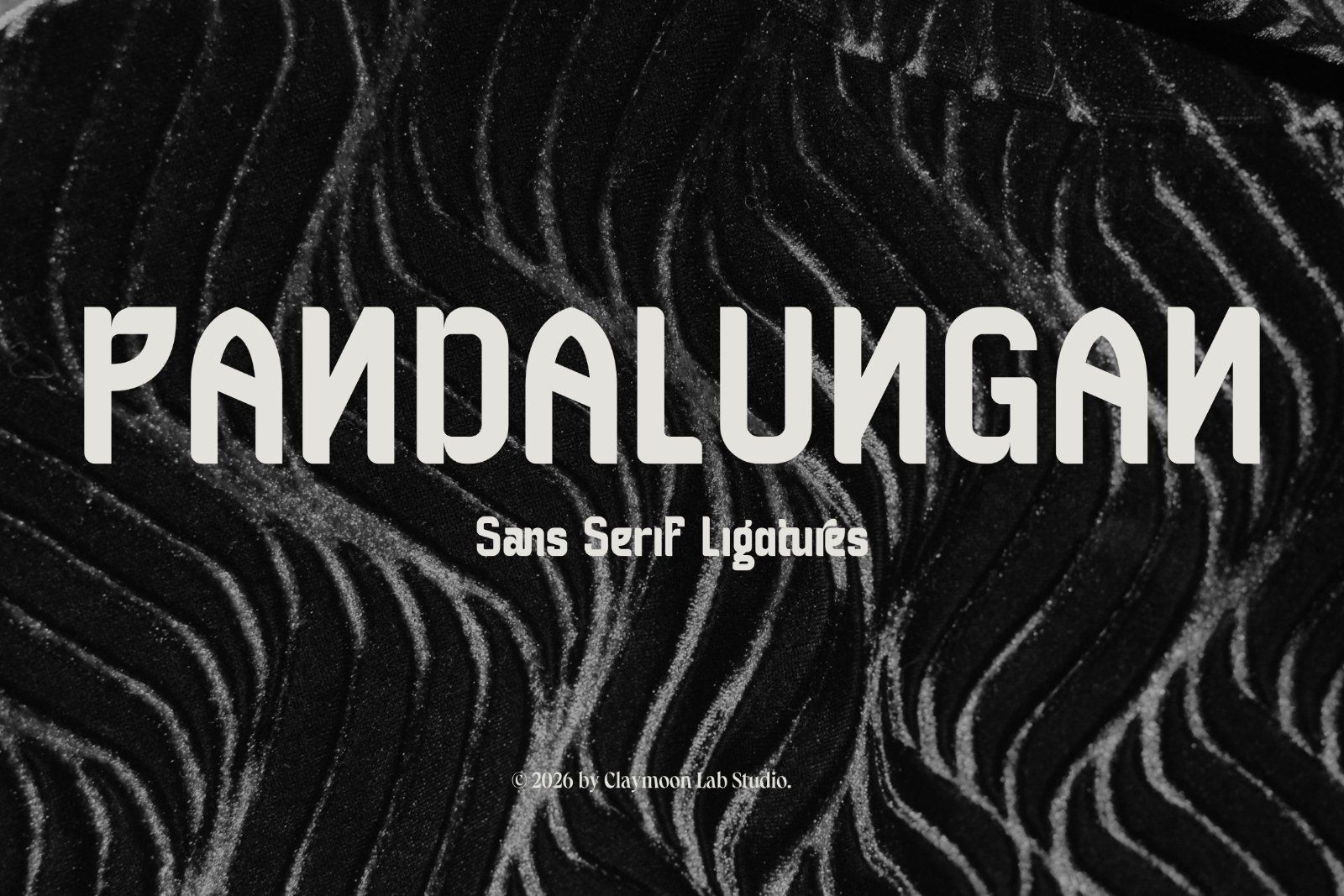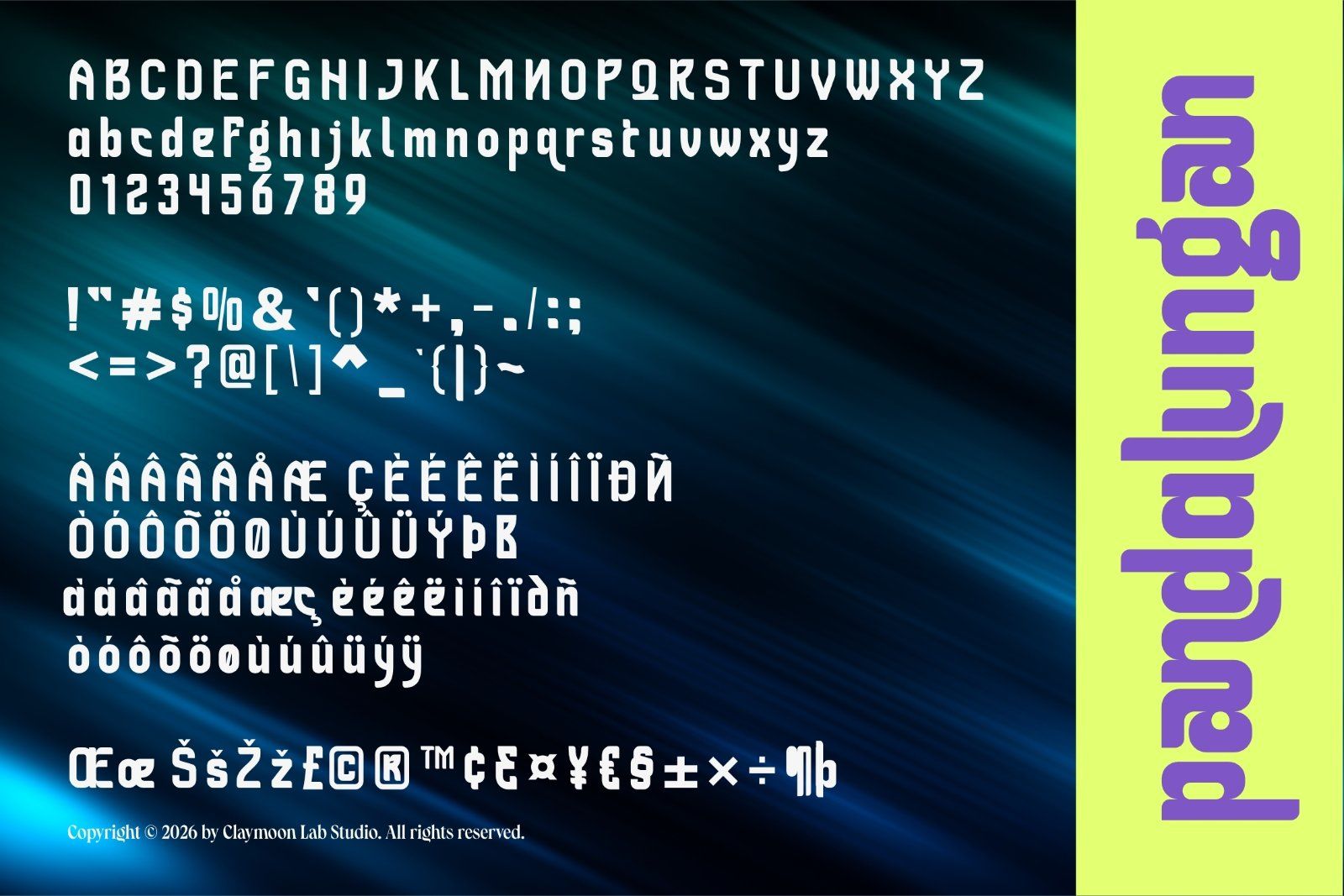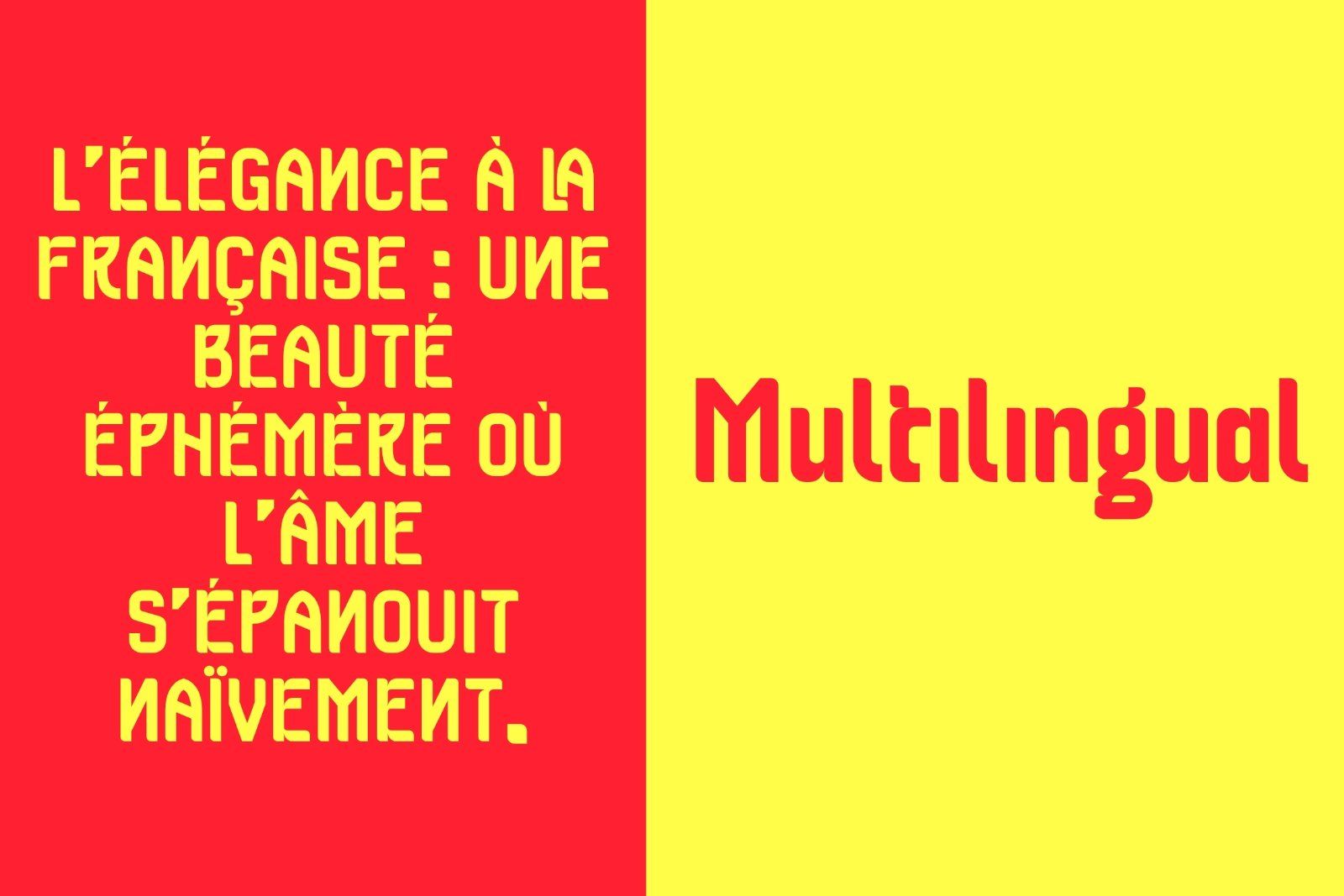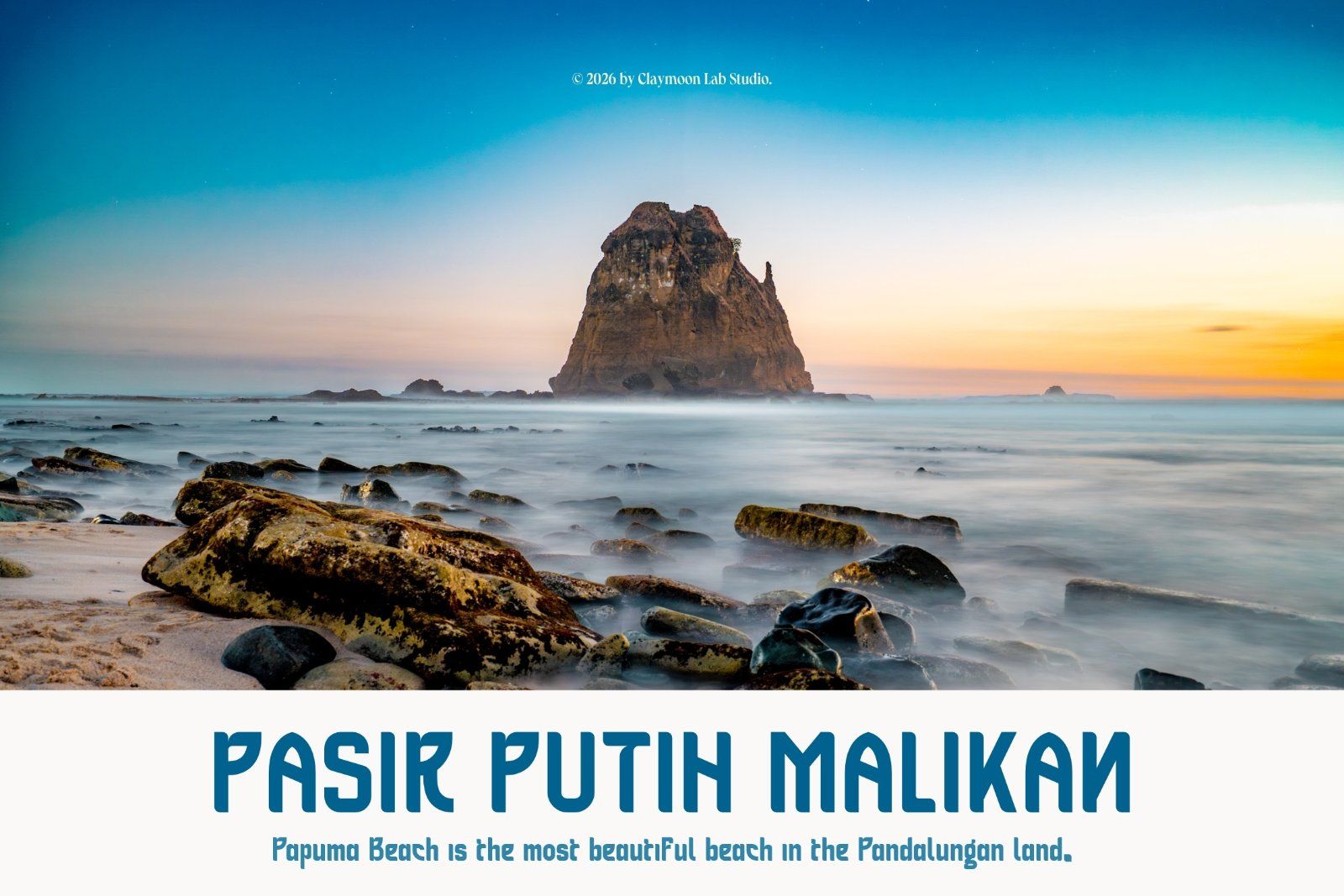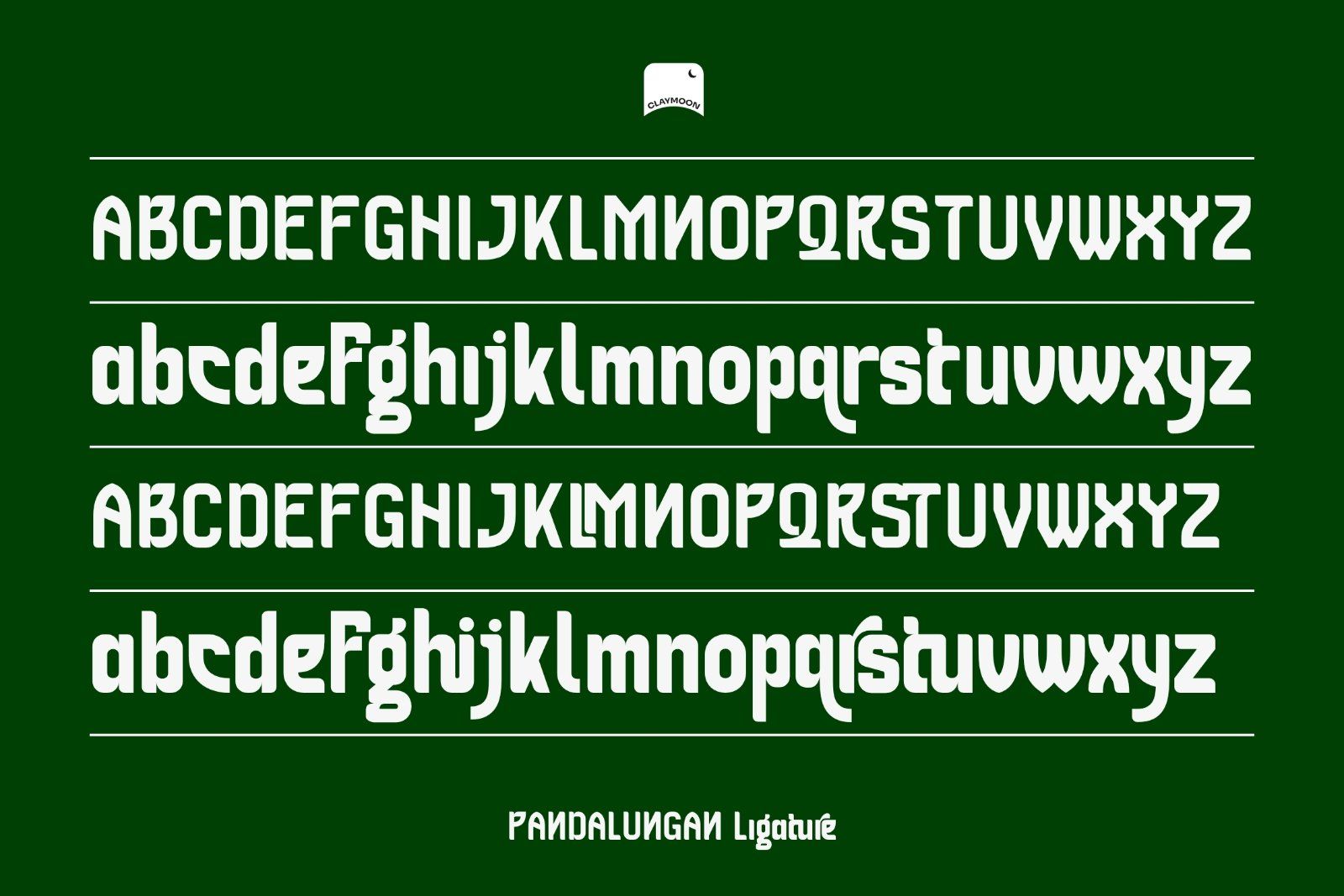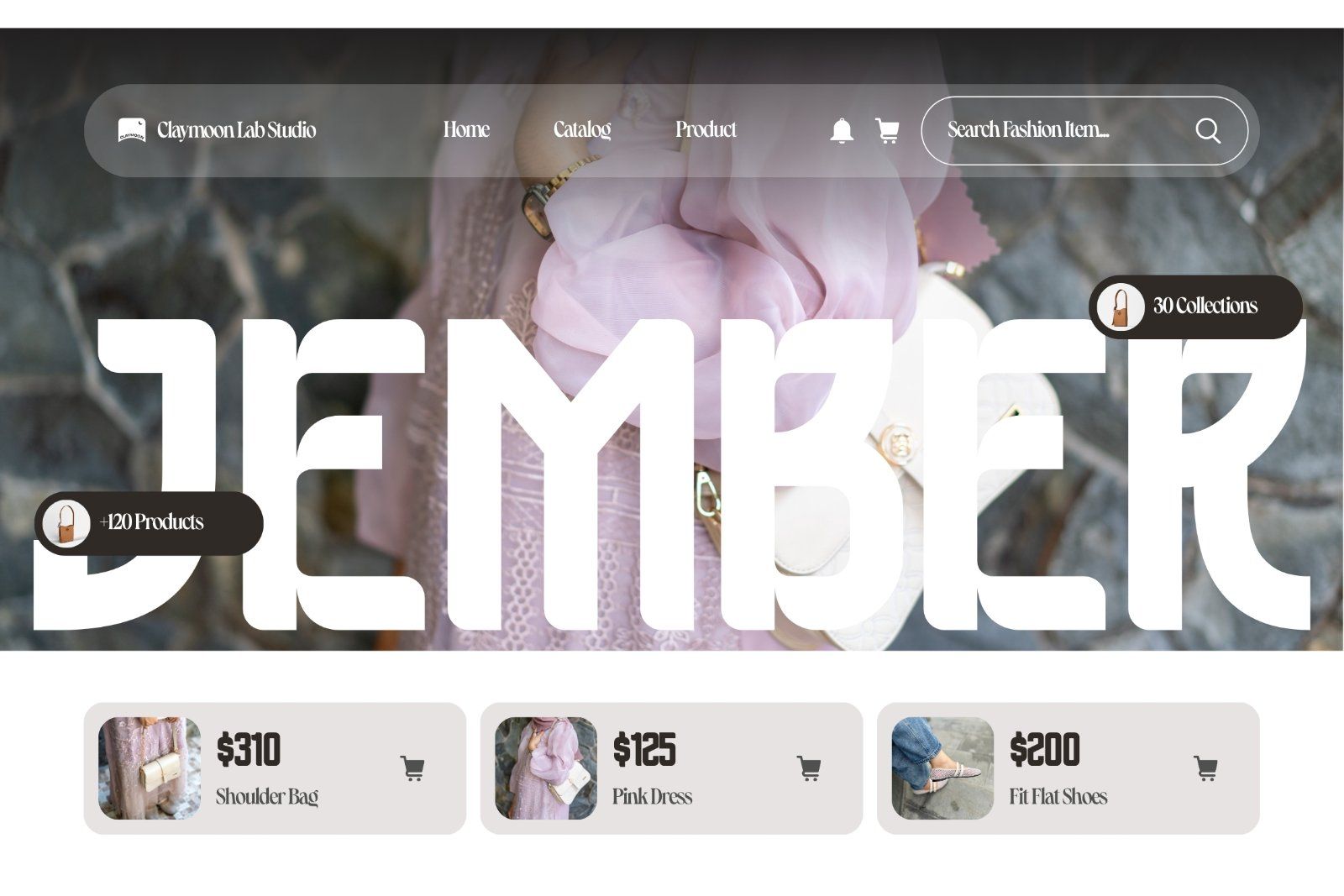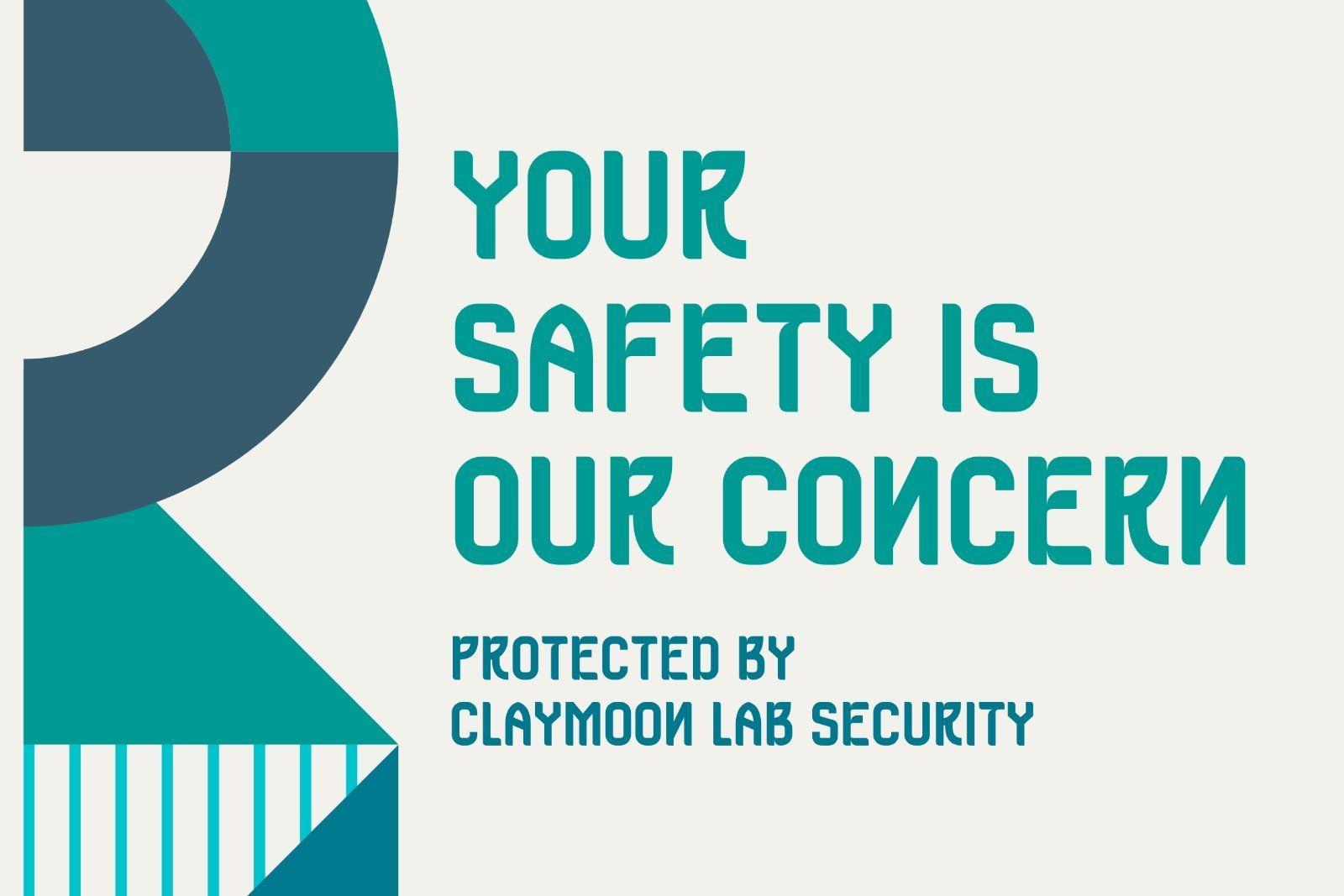
Pandalungan — Bold Display Sans Serif with Ligatures
Rooted in cultural identity and built for contemporary creative expression, Pandalungan is a bold, characterful display sans serif typeface that carries a distinct personality unlike anything in your type collection. Named after the unique multicultural fusion of Javanese and Madurese heritage, Pandalungan channels that same spirit of creative collision — blending strong geometric construction with organic, hand-influenced letterform details and distinctive built-in ligatures that make every word feel crafted rather than typed.
The wide, confident uppercase forms command attention at display scale, while the ligature system adds a layer of typographic sophistication that elevates headlines, wordmarks, and creative compositions into something genuinely memorable. With comprehensive multilingual support, Pandalungan is built for designers working across global markets who refuse to compromise on character.
- Built-in Ligatures: Distinctive connected letterform pairs for unique typographic compositions.
- Full Character Set: Uppercase, lowercase, numerals, punctuation, and extended symbols.
- Multilingual Support: Broad extended Latin coverage including accented characters for international creative projects.
- Branding & Logo Design: Building bold, culturally expressive wordmarks, logotypes, and brand identities with a distinctive typographic voice.
- Poster & Event Promotion: Designing commanding headlines for music events, cultural festivals, and entertainment campaigns with built-in visual flair.
- Digital & Social Media Content: Creating high-impact thumbnails, social media graphics, digital covers, and campaign visuals with unique typographic character.
- Editorial & Publication Design: Setting expressive, personality-driven title treatments for magazine covers, digital publications, and editorial features.
- UI & Motion Design: Applying bold display typography to title sequences, app interfaces, and digital product branding with cultural depth.